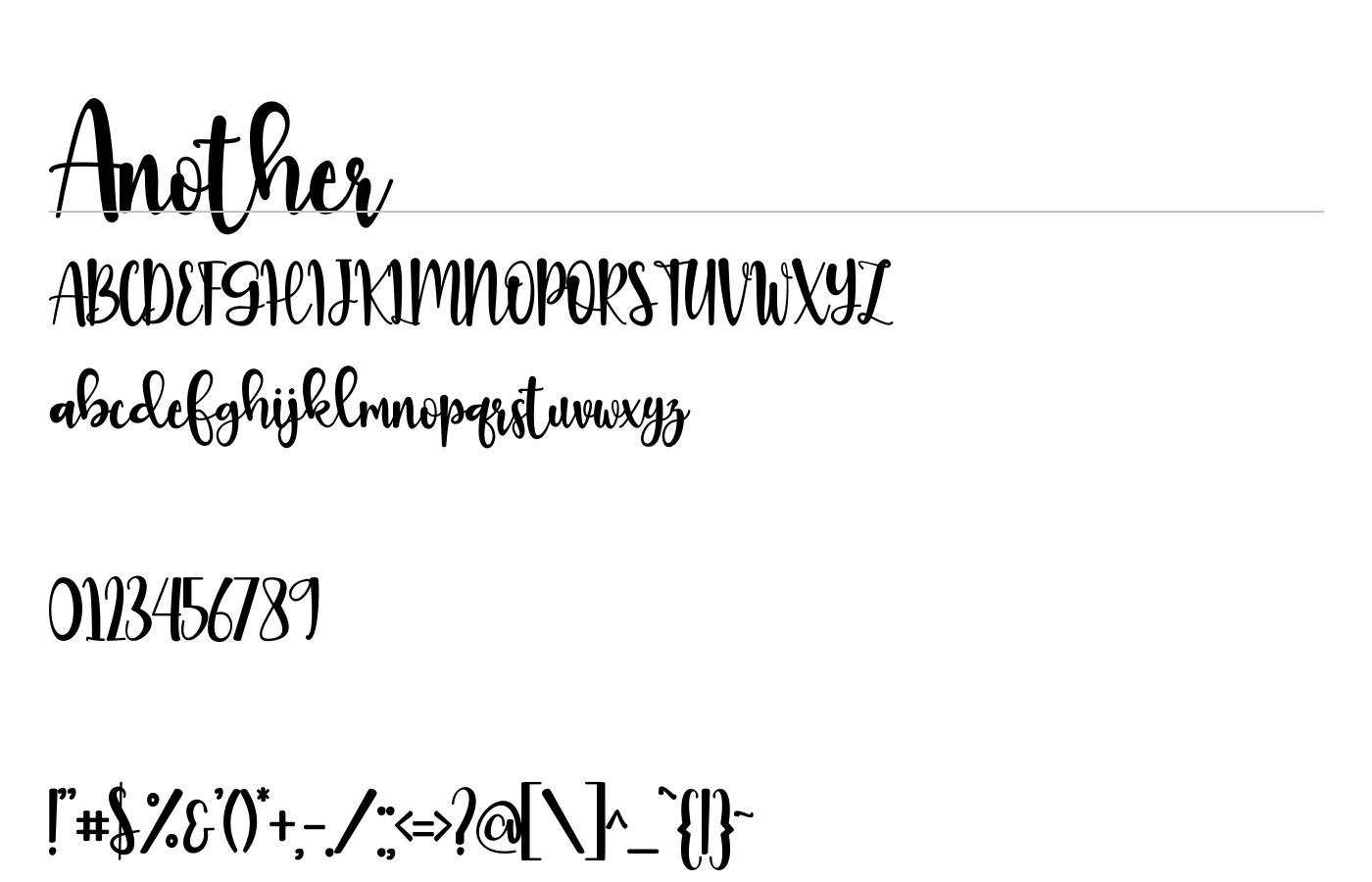
Another Font is a playful, handwritten script with a lively and casual feel. Featuring high contrast between thick and thin strokes, delicate loops, and whimsical letterforms, it exudes a friendly and artistic personality, making it ideal for creative branding, invitations, and eye-catching headlines. Its unique style adds charm and warmth, perfect for designs that want to convey approachability and fun.
Another Font
About Another Font